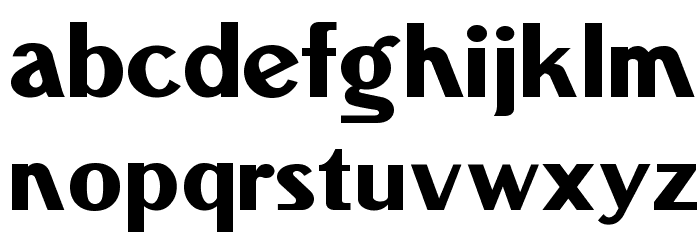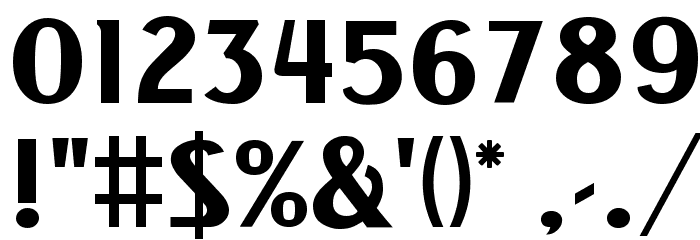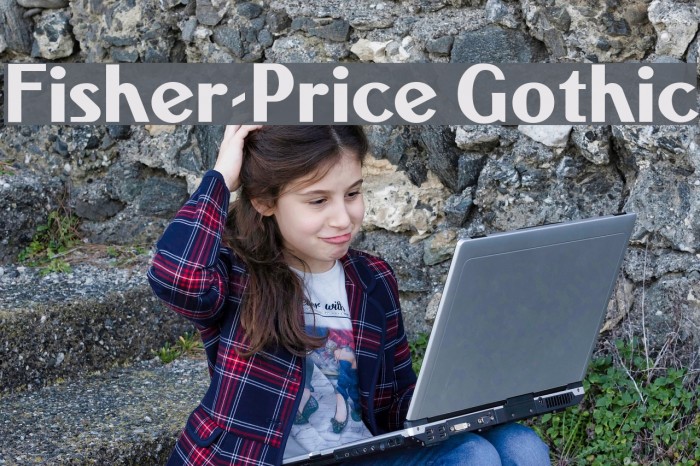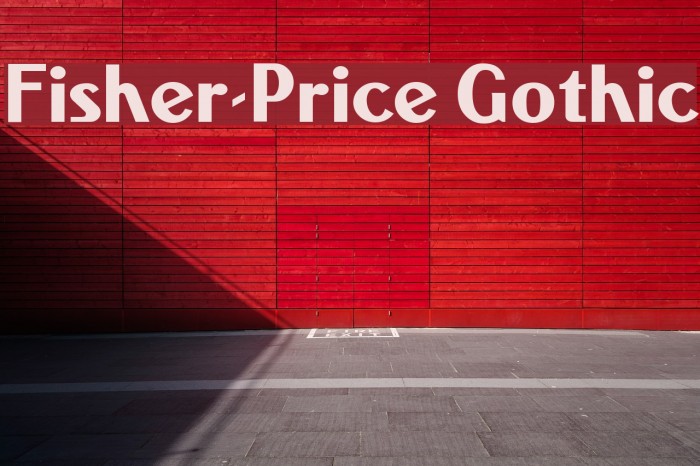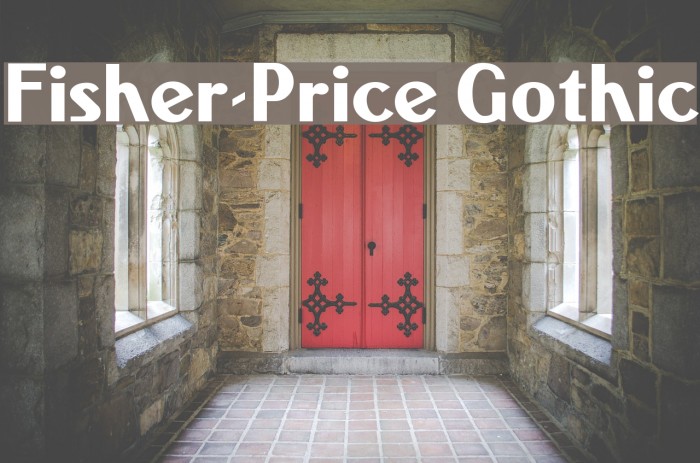
Fisher-Price Gothic Font
This font features a bold and playful design, characterized by its thick strokes and rounded edges that convey a sense of friendliness and approachability. The uppercase letters are strong and assertive, while the lowercase letters maintain a consistent weight, offering a harmonious balance. The numerals are clear and easy to read, making them suitable for various applications. Special characters are well-integrated, maintaining the overall aesthetic. The font's style is versatile, making it ideal for children's products, playful branding, and any design that requires a touch of whimsy and warmth.
A bold, playful font with rounded edges and a friendly appearance.
- Font: Fisher-Price Gothic
- Proposed Projects: Ideal for children's books, toy packaging, playful branding, and educational materials.
- Category: Sans-Serif
- Overall Style: Playful
- Use Case: Logos, Headlines, Packaging